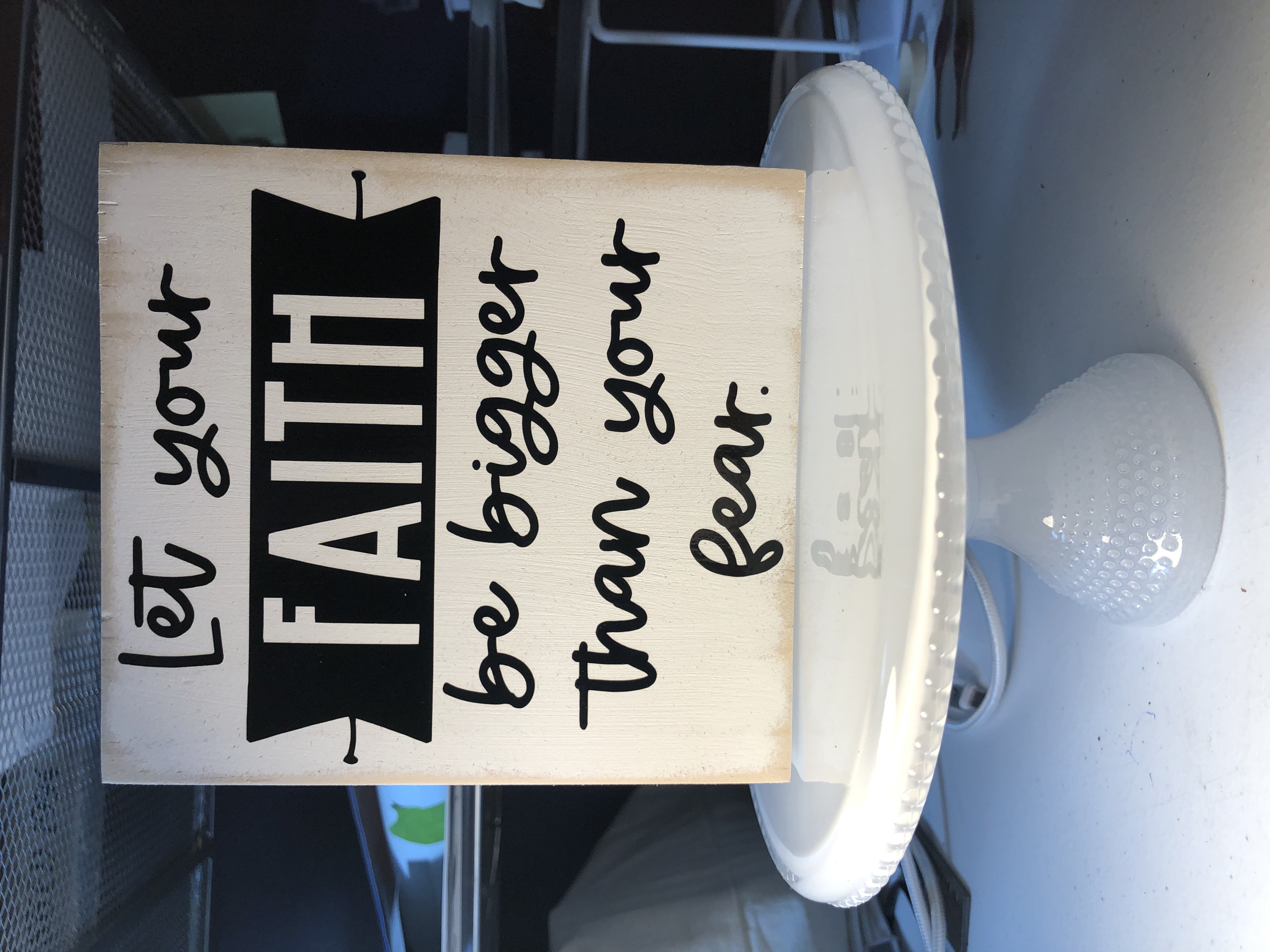
Apple Crisp is a fun and quirky handwritten font!
This font is perfect for quotes, shirt designs, websites, branding, children's designs, svg designs, blogs, logos, invitations and more!